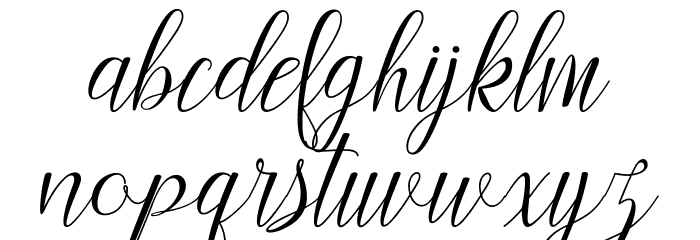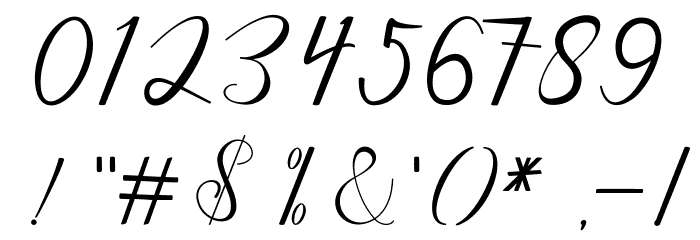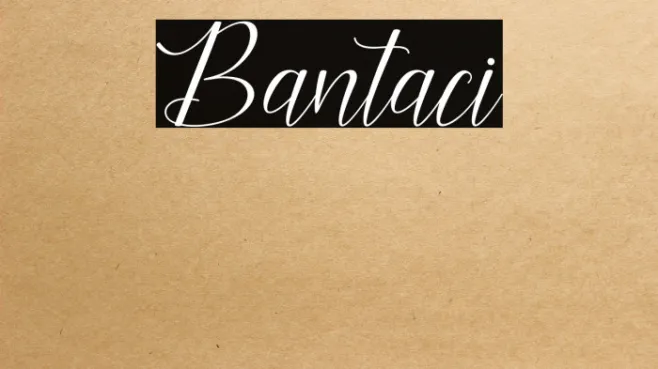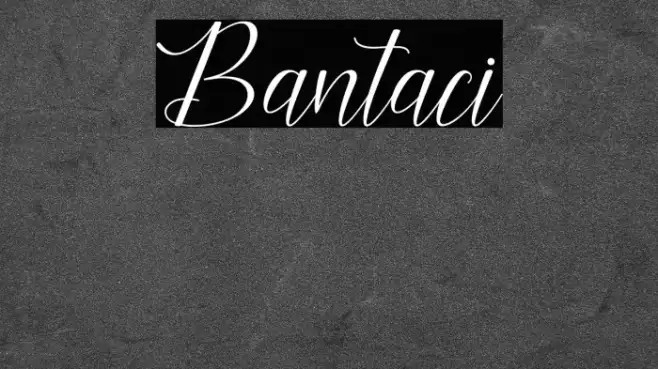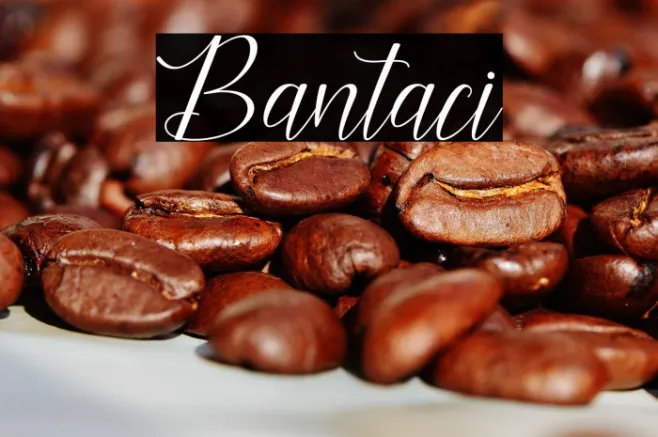
Bantaci Font
This elegant script font features fluid, graceful strokes with a calligraphic flair. The uppercase letters are tall and slender, with delicate loops and flourishes that add a touch of sophistication. The lowercase letters maintain a consistent flow, enhancing readability while retaining an artistic style. Numbers are designed with similar elegance, featuring smooth curves and subtle embellishments. Special characters are thoughtfully crafted to match the overall aesthetic, making this font versatile for various uses. Its refined appearance makes it suitable for formal invitations, branding, and decorative purposes.
An elegant script font with fluid, graceful strokes and calligraphic flair.
- Font: Bantaci
- Proposed Projects: Ideal for wedding invitations, elegant branding, greeting cards, and decorative signage.
- Category: Script
- Overall Style: Elegant, Decorative
- Use Case: Headlines, Invitations, Branding